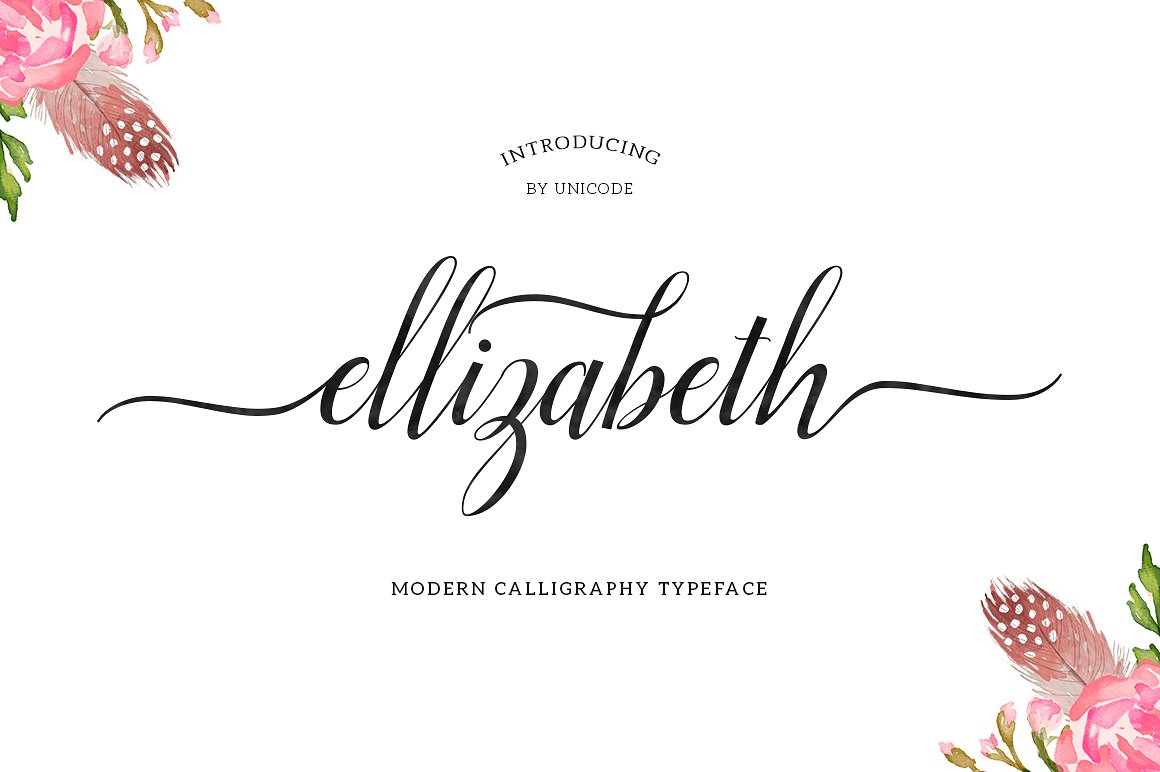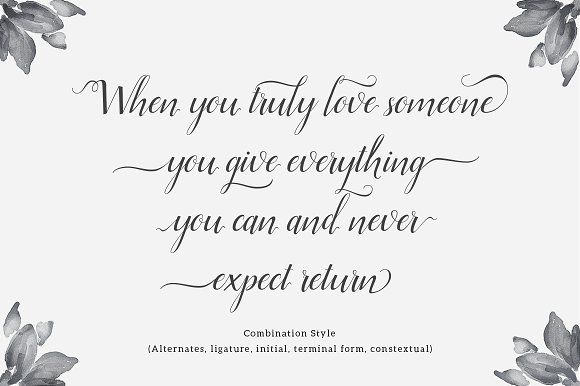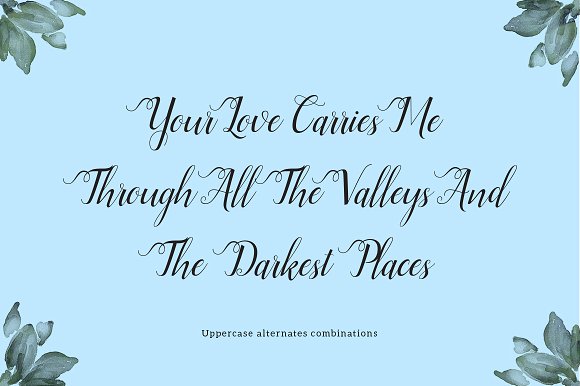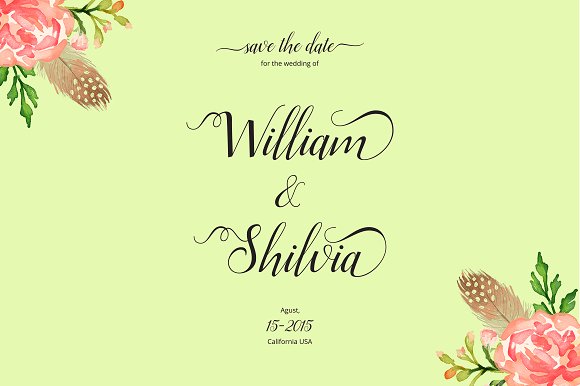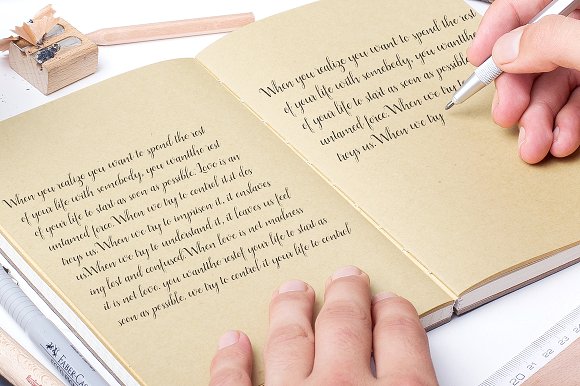
HomeScript FontsEllizabeth Font Script Fonts Ellizabeth Font FacebookXPinterestWhatsApp Ellizabeth Font Poster 2 Ellizabeth Font Poster 3 Ellizabeth Font Poster 4 Ellizabeth Font Poster 5 About Ellizabeth Font Elizabeth is a clean & elegant handwritten font. DOWNLOAD ON CREATIVE FABRICAThis font is sold and delivered by Creative Fabrica. Font Canyon may earn a commission if you buy through this link. People also explored Xplode Font Brooklyn Font Pirate Font Roselle Font Woody Font Rookie JNL Font Get Now Font Lambrella Font Beautiful Beach Font 319 0 TagsEllizabeth Font Previous articleHonesty FontNext articleDelighted Font LEAVE A REPLY Cancel reply Comment: Please enter your comment! Name:* Please enter your name here Email:* You have entered an incorrect email address! Please enter your email address here Website: Save my name, email, and website in this browser for the next time I comment. Personal Use Free Nuku Nuku Personal Use Free Read more about this font Rare Knuckle Personal Use Free Read more about this font Christmas Diary Personal Use Free Read more about this font Good Luck Personal Use Free Read more about this font BLOG Fonts That Capture the Spirit of New York City New York City is more than just a place—it’s an experience, a rhythm, a visual language... How to Install and Use Fonts on Windows, macOS, and Web Projects Transform Your Website: Elevate Your Typography with 7 Best Web Font Generators Free Fonts Risk: Why Free Fonts Can Be Dangerous for Designers